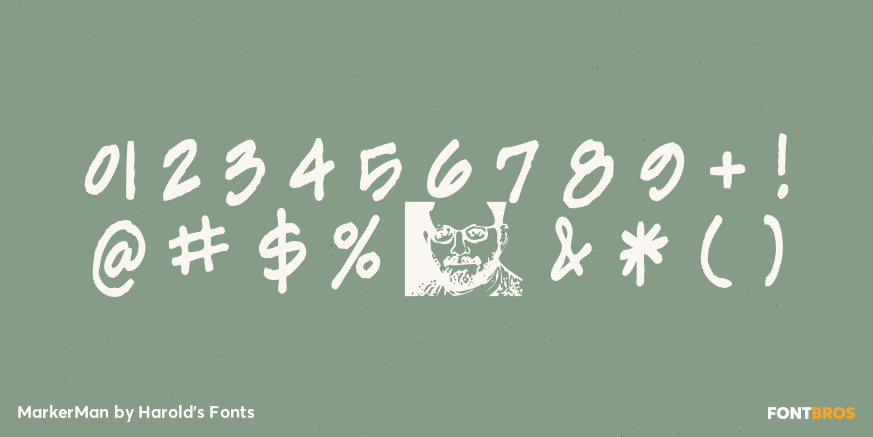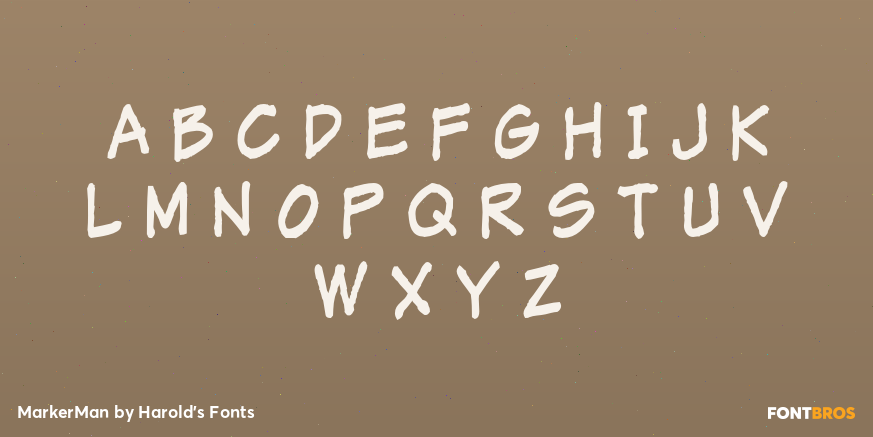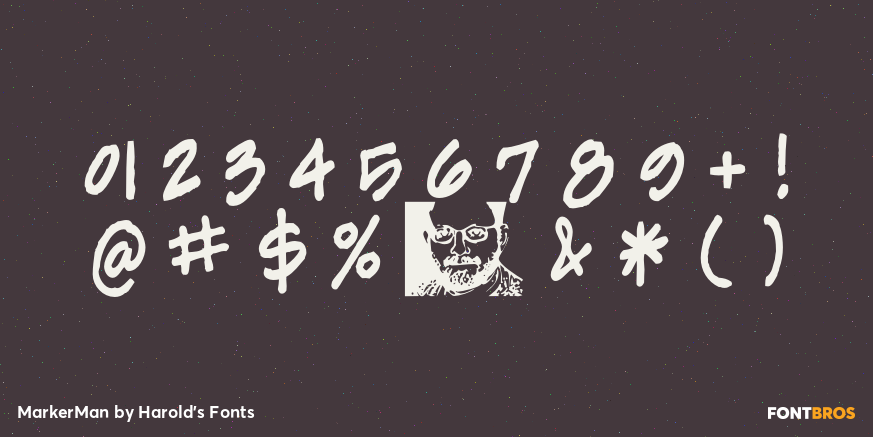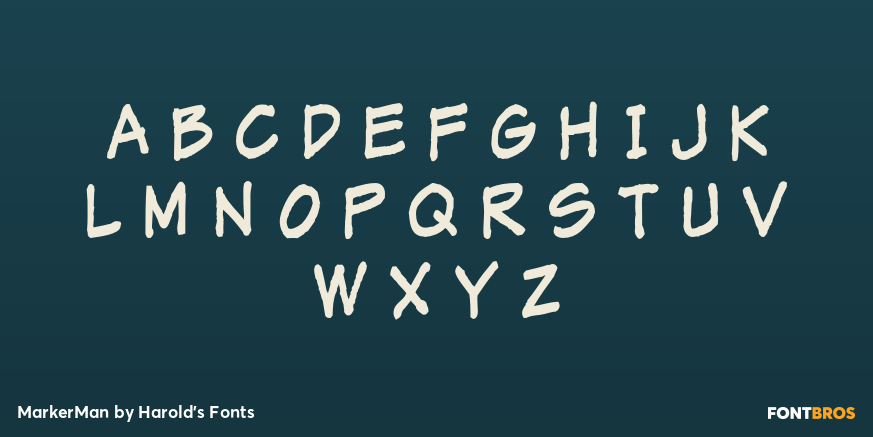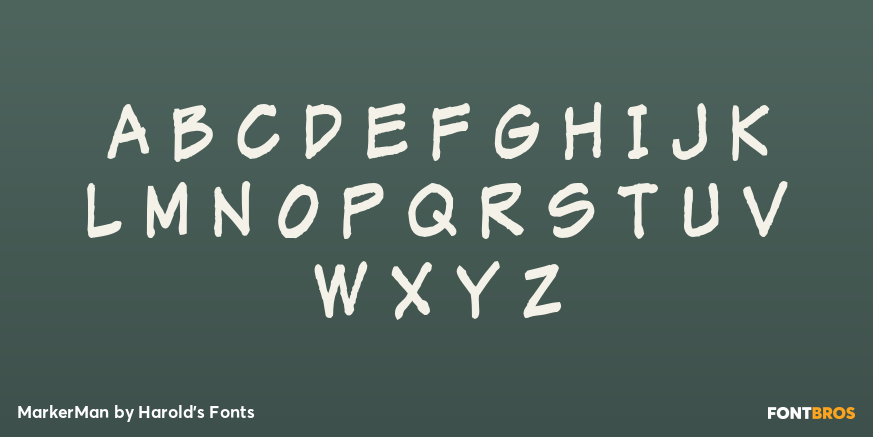
MarkerMan
Font Family by Harold's Fonts
MARKERMAN is yet another comic-book style font. Can be bolded or italicized effectively. Includes 5 useful comic symbols you may find useful. Includes several characters of use to comic artists: the squean (which might float around a drunken character's head), the grawlix (a substitute for swearing), the jarn (ditto), a phosphene (for a character who's "seeing stars"), and the quimp (another swear.) Have @#$%* fun!